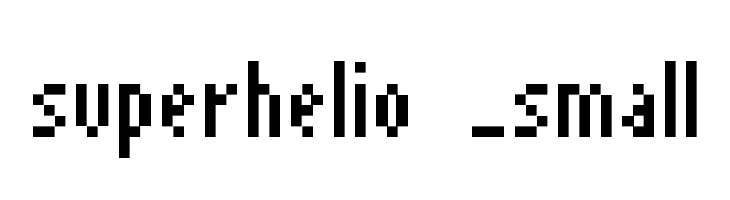
( Font by Sven Stuber - www.superlooper.de )
A pixelated, retro-style font with a blocky, digital appearance.
( Font by Sven Stuber - www.superlooper.de )
A pixelated, blocky font with a retro digital aesthetic.
( Font by Sven Stuber - www.superlooper.de )
A pixelated, retro-style font with a digital, blocky appearance.
( Font by Sven Stuber - www.superlooper.de )
A pixelated, retro-style font with a blocky, digital appearance.
( Font by Sven Stuber - www.superlooper.de )
A pixelated, retro-style font with a digital, grid-like design.
( Font by Sven Stuber - www.superlooper.de )
A bold, geometric font with a digital, retro aesthetic.
( Font by Sven Stuber - www.superlooper.de )
A modern, dotted font with a rounded, digital aesthetic.
( Font by Sven Stuber - www.superlooper.de )
A geometric, pixelated font with a modern, technological style.
( Font by Sven Stuber - www.superlooper.de )
A pixelated, retro-style font inspired by early digital typography.